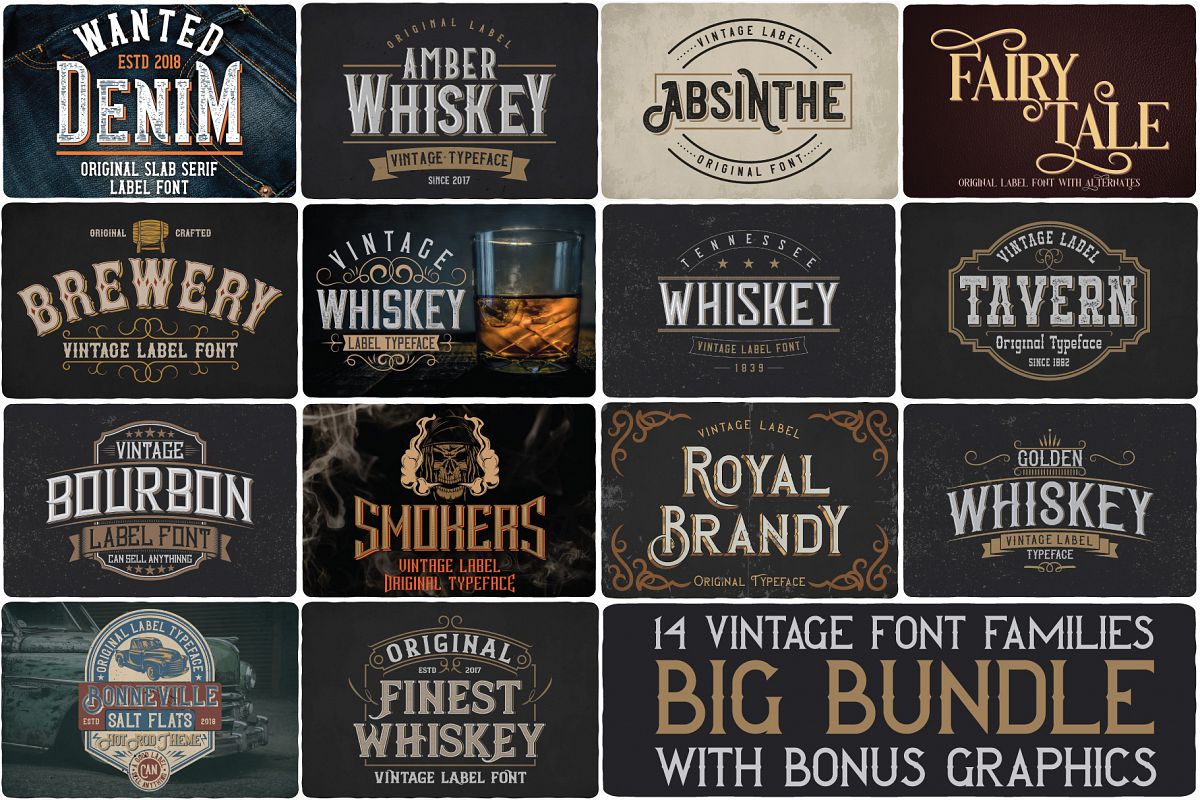
Big Bundle - 14 fonts
Retro or vintage style display fonts for your new projects. Great for grunge/retro/fantasy/vintage projects like: branding, corporate identity, print designs, headers, logo designs, t-shirt designs...
14 fonts in this bundle:
1. Tennessee Whiskey label font
2. Bonneville Typeface
3. Fairy Tale Typeface
4. Vintage Whiskey Typeface
5. Brewery
6. Royal Brandy typeface
7. Wanted Denim layered font
8. Smokers typeface
9. Amber Whiskey Typeface
10. Tavern Typeface
11. hFinest Whiskey Font
12. Absinthe Font
13. Golden Whiskey typeface
14. Bourbon Label typeface